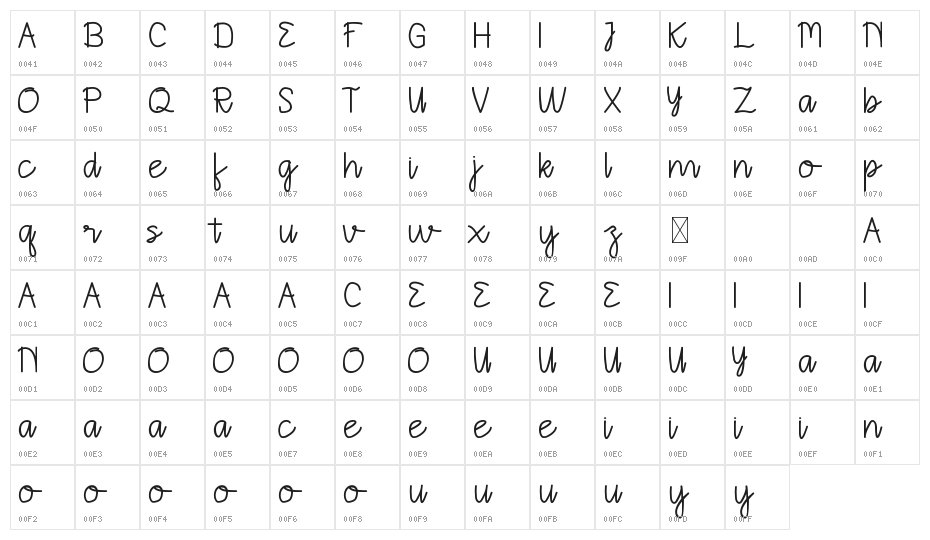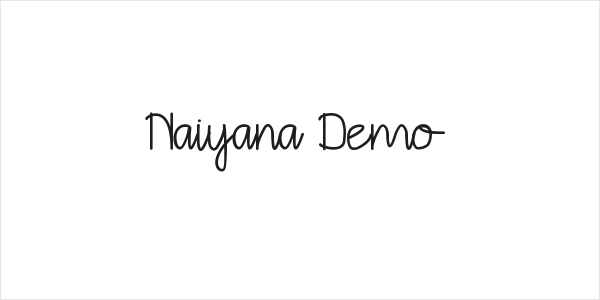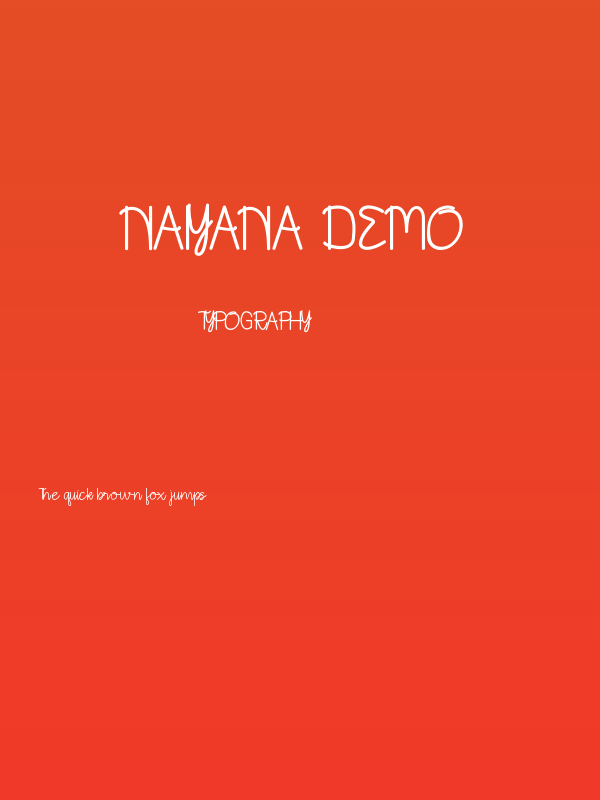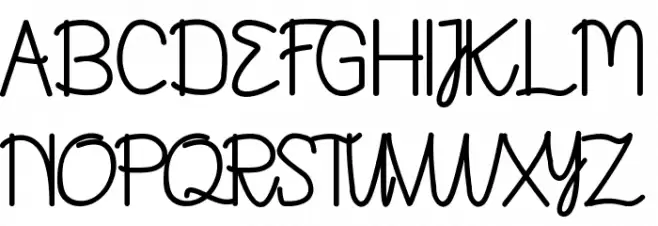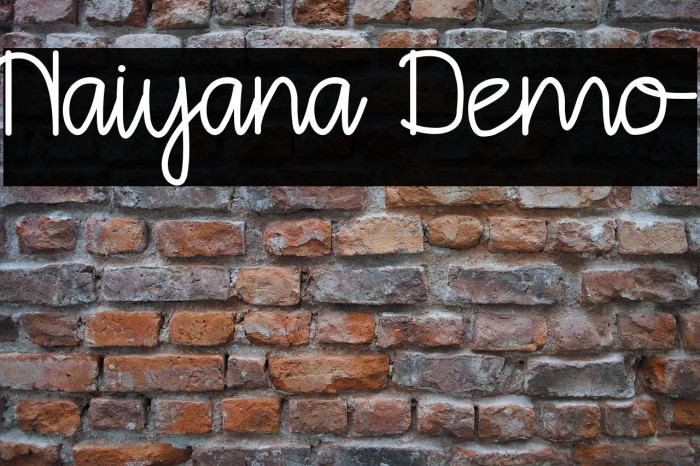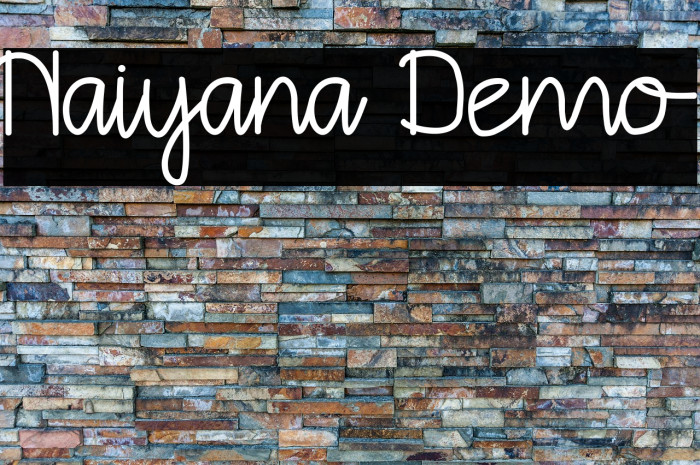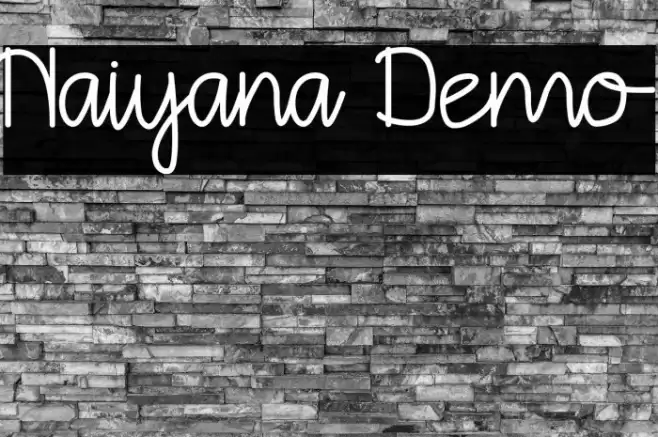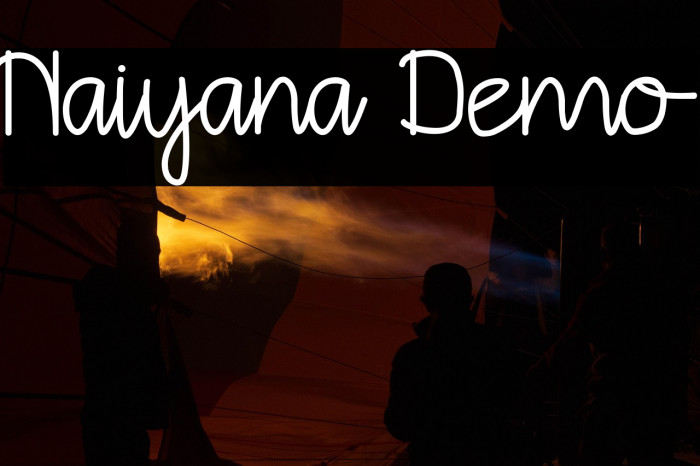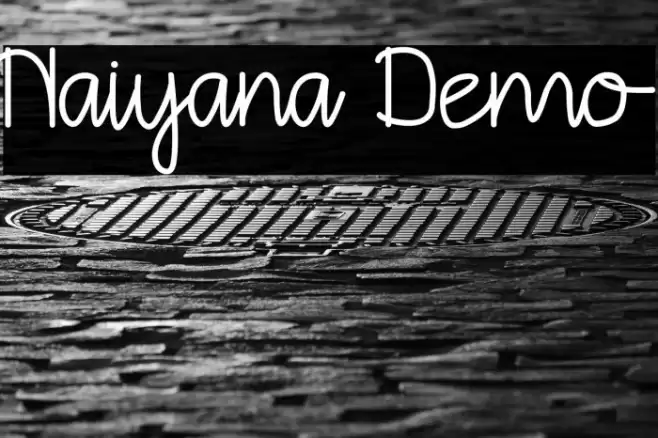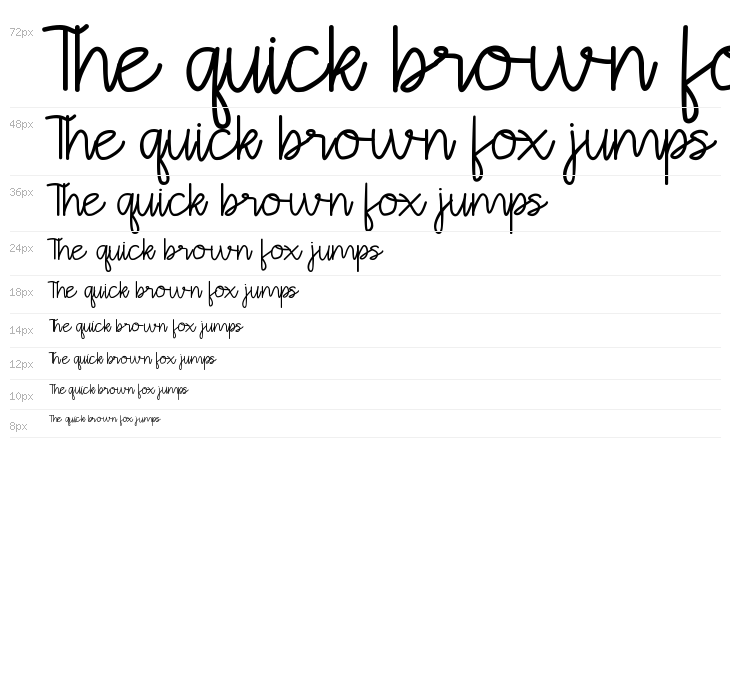
Naiyana Demo Font
This font features a playful and casual handwritten style, characterized by its flowing and connected letterforms. The strokes are smooth and consistent, giving it a friendly and approachable appearance. The uppercase and lowercase letters maintain a uniform height, while the overall design exhibits a slight slant, adding to its dynamic feel. The font's whimsical nature is enhanced by its rounded edges and the subtle variations in stroke thickness, which provide a sense of movement and energy. It's well-suited for projects that require a personal touch, such as invitations, greeting cards, or branding for creative businesses.